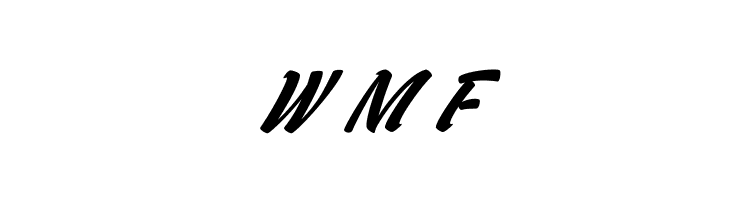
A bold, distressed font with a punk-inspired, rebellious aesthetic.
A bold, italic, handwritten font with a playful and energetic style.
A bold, handwritten font with a dynamic and energetic style.
A playful, casual handwritten font with uneven strokes and a dynamic feel.
A playful, handwritten font with rounded, consistent strokes and a casual feel.
A bold, playful font with a hand-drawn, casual style.
A playful, cloud-like font with bold, rounded characters.
A decorative font with stylized animal head motifs, ideal for creative display use.
A bold, distressed font with a vintage, rugged texture.
A decorative, nature-inspired font with organic, vine-like shapes.
A bold, distressed font with a textured, spray-painted appearance.
A playful, casual handwritten font with an organic and friendly appearance.
A playful, hand-drawn font with a textured, whimsical style.
A bold, hand-drawn font with a textured, scribble-like pattern.
A pixelated, digital-style font resembling LED displays with a retro-futuristic aesthetic.
A bold, distressed font with a vintage, rugged appearance.
A playful, handwritten font with tall, narrow characters and a casual style.
A dot matrix style font with a digital, retro aesthetic.
A bold, playful font with rounded, whimsical characters.
A bold, playful font with rounded, hand-drawn characters.